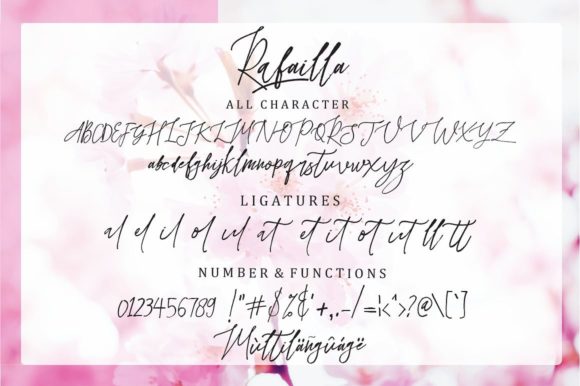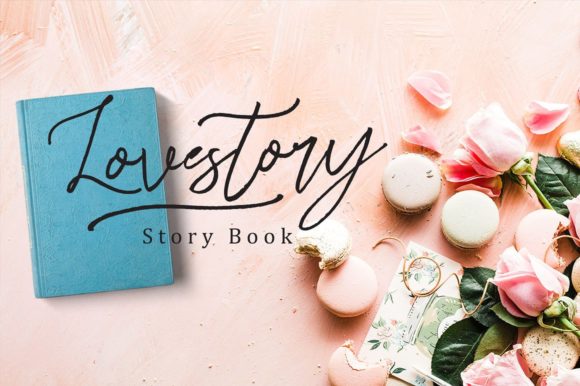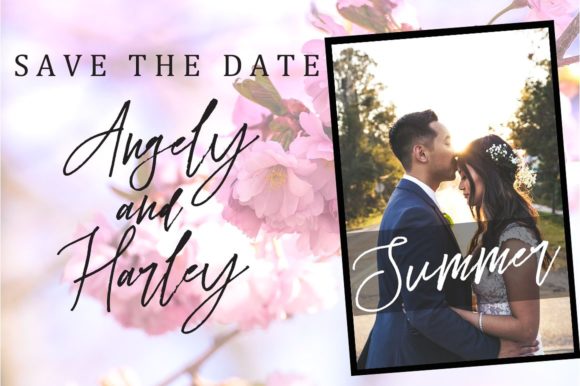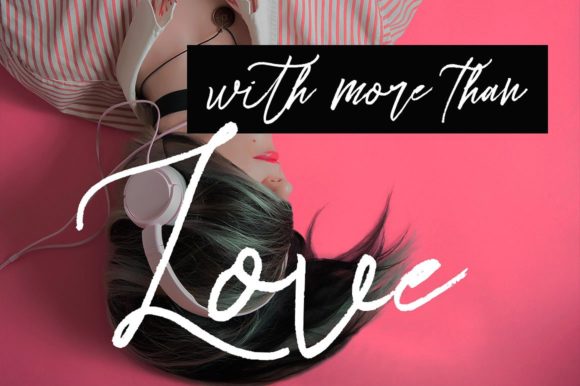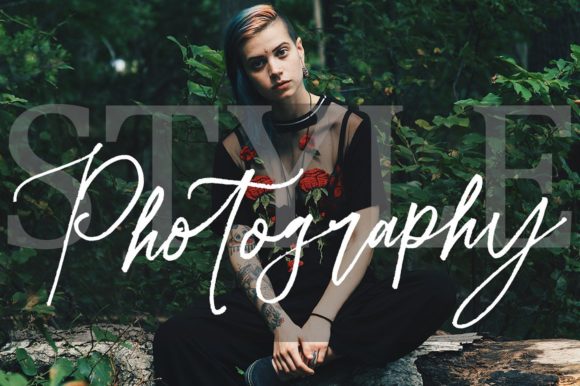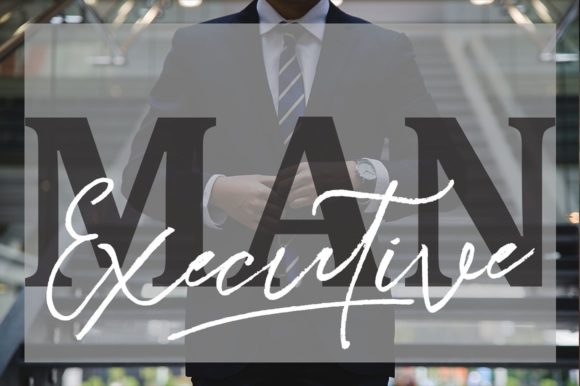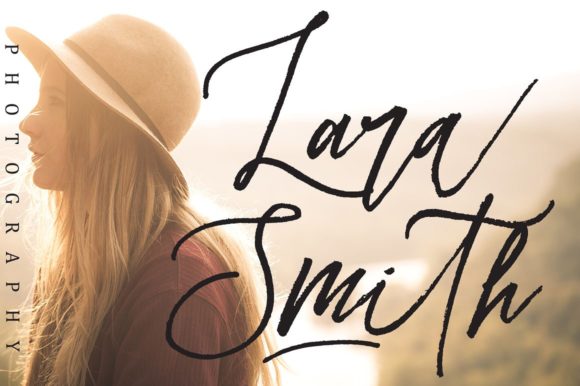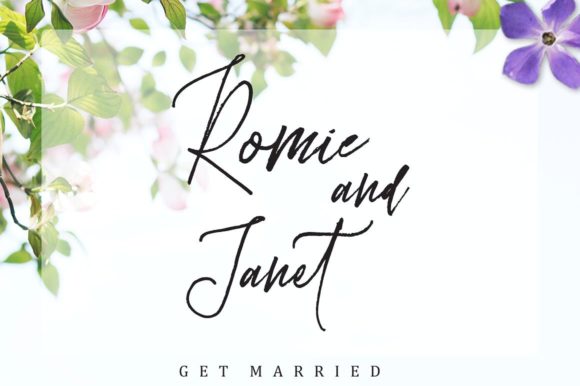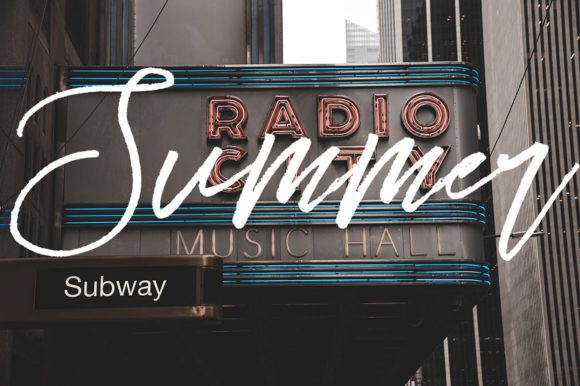
Rafailla Script Font
About Rafailla Script Font
Rafailla is a distinguished calligraphy font that exudes elegance and sophistication. With its handwritten style and refined flows, this font is crafted to add a touch of luxury to your designs, making it the perfect choice for a wide range of upscale and chic projects.
The elegance of Rafailla lies in its meticulously designed calligraphic elements, which bring a sense of handcrafted beauty to each character. The sophisticated flows of the font contribute to a luxurious feel, making it well-suited for projects that demand a touch of opulence.
This font is particularly ideal for greeting cards, where its graceful script can convey sentiments with a stylish flair. Additionally, Rafailla is a perfect fit for branding materials, wedding designs, social media posts, advertisements, and product designs. Its versatility allows it to seamlessly integrate into various design contexts, providing a consistent and refined aesthetic.
Whether applied to digital or print materials, Rafailla elevates the visual language of your designs. Its upscale and chic look makes it an invaluable tool for designers seeking to infuse a sense of sophistication into their creative endeavors.
In summary, Rafailla is not merely a font but an elegant calligraphy style that serves as a design statement. Its handwritten charm, combined with sophisticated flows, brings a luxurious feel to greeting cards, branding materials, wedding designs, and more. For every project that requires an upscale and chic look, Rafailla stands as a reliable choice, adding an extra layer of refinement and beauty to your designs.